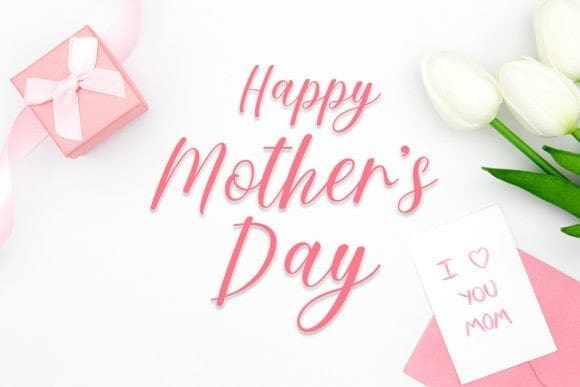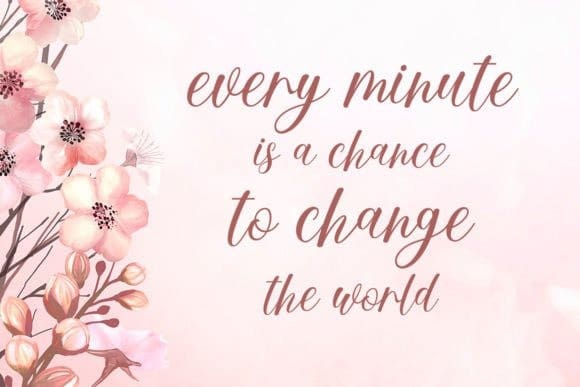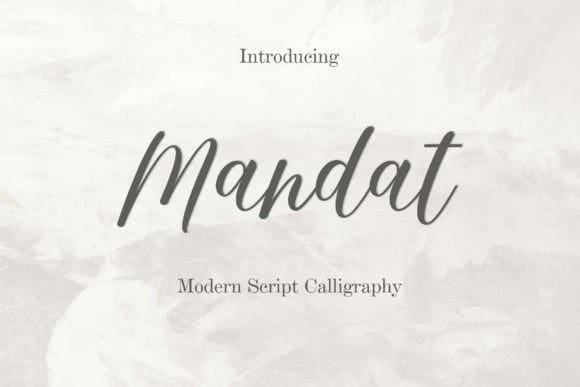
Mandat Script Font
Mandat Script Font, a delightful interpretation of modern calligraphy. Embodying a sense of joy and subtle elegance, this flowing script font stands out with its contemporary charm. Without a doubt, MandatScript enriches your designs with a mystic flavor of magic.